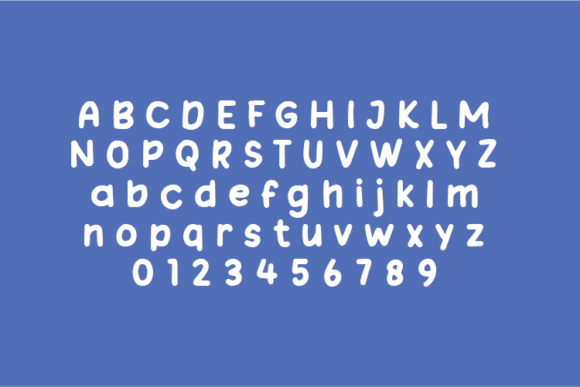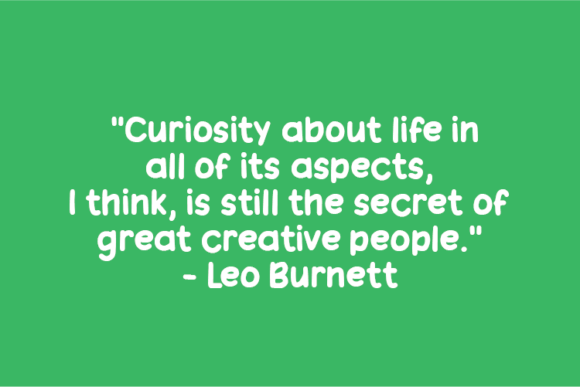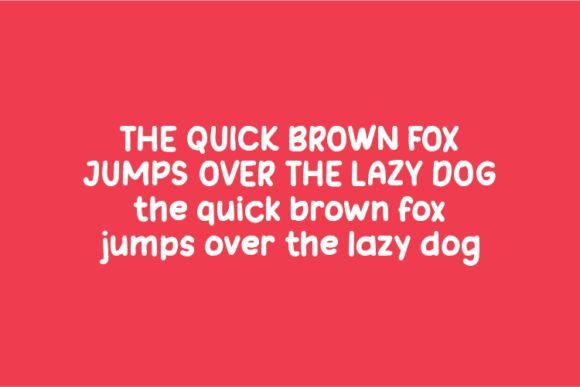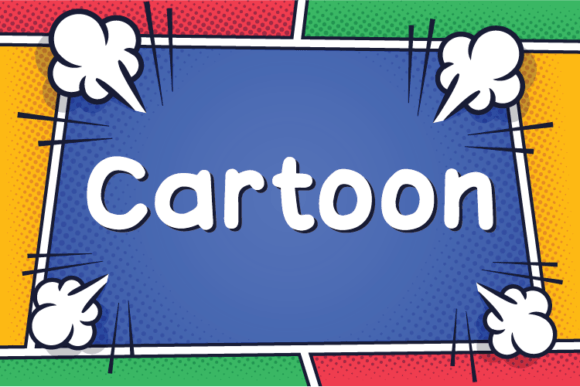
Introducing Cartoon Font: The Ultimate Sans Serif Font for Creative Designs
Are you tired of using the same old fonts for your designs? Look no further! Cartoon Font is a game-changer in the world of typography. This natural sans serif font is made without changing a single node in each character’s indentation, making it a unique and interesting addition to your design toolkit. In this article, we’ll dive into the features and benefits of Cartoon Font, and explore how it can elevate your designs.
The Unique Feature of Cartoon Font
So, what sets Cartoon Font apart from other sans serif fonts? The answer lies in its creation process. Unlike other fonts that are designed by modifying the nodes of each character, Cartoon Font is made by keeping the original indentation of each character intact. This approach gives the font a distinctive and quirky feel that’s perfect for designs that need a touch of personality.
The unique feature of Cartoon Font makes it an excellent choice for designers who want to add a bit of whimsy to their designs. Whether you’re working on a project for a children’s book, a cartoon, or a playful brand, this font is sure to bring a smile to your audience’s faces.
Perfect for Quotes, Notes, Tees, and More
Cartoon Font is an incredibly versatile font that can be used for a wide range of design projects. Here are some ideas to get you started:
- Quotes: Use Cartoon Font to add a touch of personality to your inspirational quotes, funny sayings, or witty one-liners.
- Notes: Add a playful touch to your notes, to-do lists, or journal entries with Cartoon Font.
- Tees: Create eye-catching t-shirt designs with Cartoon Font that’s sure to turn heads.
- Product Design: Use Cartoon Font to create unique and engaging product designs, from stickers to posters to packaging.
Why Designers and Crafters Love Cartoon Font
Designers and crafters are always on the lookout for fonts that can help them create unique and engaging designs. Here are some reasons why Cartoon Font has become a favorite among creatives:
- Unique Style: Cartoon Font’s distinctive style sets it apart from other sans serif fonts, making it perfect for designers who want to add a touch of personality to their designs.
- Ease of Use: Cartoon Font is easy to read and use, making it perfect for a wide range of design projects.
- Versatility: Cartoon Font can be used for both digital and print projects, making it a versatile addition to any design toolkit.
Tips for Using Cartoon Font
Here are some tips for getting the most out of Cartoon Font:
- Pair it with Other Fonts: Experiment with pairing Cartoon Font with other fonts to create interesting and dynamic designs.
- Use it for Headlines: Cartoon Font is perfect for headlines, titles, and other attention-grabbing elements.
- Add Color: Cartoon Font looks great with bold, bright colors, so don’t be afraid to get creative with your color palette.
Cartoon Font is a unique and versatile sans serif font that’s perfect for designers and crafters who want to add a touch of personality to their designs. With its distinctive style, ease of use, and versatility, Cartoon Font is sure to become a favorite in your design toolkit. Whether you’re working on a project for a children’s book, a cartoon, or a playful brand, Cartoon Font is the perfect choice. So why wait? Download Cartoon Font today and start creating engaging and unique designs that will leave a lasting impression on your audience.